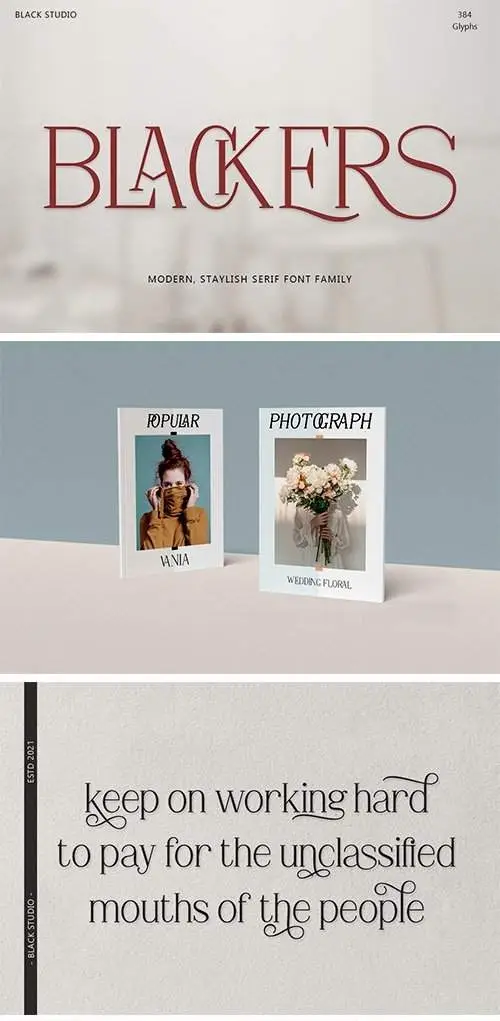
Blackers - Modern Vintage Serif Font
Blackers Serif is a modern vintage serif font packaged in a modern and classy style, complete with access to your OpenType features to access a large selection of alternative letters and ligatures, the choice of letters you like from various upper and lowercase letters for a luxurious and elegant look